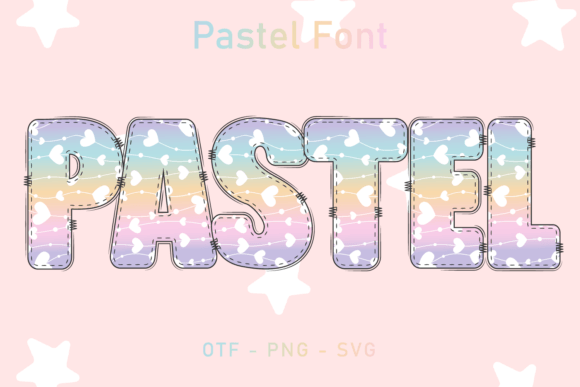
Pastel Love: A Hand-Drawn Font for Creative Projects
When you first see Pastel Love, it’s clear this isn’t your average typeface. It’s a premium font that feels less like a digital tool and more like a hand-crafted artifact. Each letter is meticulously drawn and filled with delicate, repeating patterns—think tiny hearts, soft dots, and subtle swirls that evoke a sense of warmth and whimsy. This isn’t a font that tries to be everything; it’s a specialized creative font with a distinct, cheerful personality. It’s designed to bring a personal, almost tactile quality to your work, making it perfect for projects where you want to convey authenticity and care.
Where This Handwritten Font Truly Shines
The true value of a font like Pastel Love lies in knowing where its strengths align with your project’s goals. It’s a display font at heart, meaning it’s built for impact in headlines, logos, and short bursts of text, not for body copy. Think of it as the decorative centerpiece of your design. Its handwritten font style makes it an excellent choice for logo design for bakeries, florists, children’s brands, boutique shops, or any business wanting to project a friendly, approachable brand identity.
Beyond logos, its charm translates beautifully to packaging design, especially for artisanal goods, cosmetics, or stationery. In editorial design, it can add personality to magazine pull quotes, chapter headings, or cookbook titles. For social media graphics, it’s a standout for Instagram Stories, Pinterest pins, and promotional banners that need to stop the scroll with a touch of handmade elegance. It’s also a natural fit for wedding invitations, greeting cards, and event posters where a personal, festive touch is paramount.
Making It Work: Practical Design Considerations
Using a display font like Pastel Love effectively requires a thoughtful approach to readability and visual hierarchy. Because its letters are ornate, pairing it with a clean, simple typeface is non-negotiable. A neutral sans serif font or a classic serif font for body text will create the necessary contrast, ensuring your message remains clear. This font pairing strategy is key; let Pastel Love handle the emotional headlines while a more subdued font does the heavy lifting for longer paragraphs.
Always test the font in context. A word that looks charming in a design mockup might become difficult to read at small sizes or on a busy background. Check how the patterns render on different screens and in print. For commercial use, verify the licensing—most premium font licenses cover a wide range of applications, from digital ads to printed merchandise, but it’s crucial to confirm. Ultimately, Pastel Love is a powerful design asset when used strategically. It doesn’t just spell out words; it infuses them with a specific feeling of joy and craftsmanship that can significantly enhance audience engagement and brand recognition.